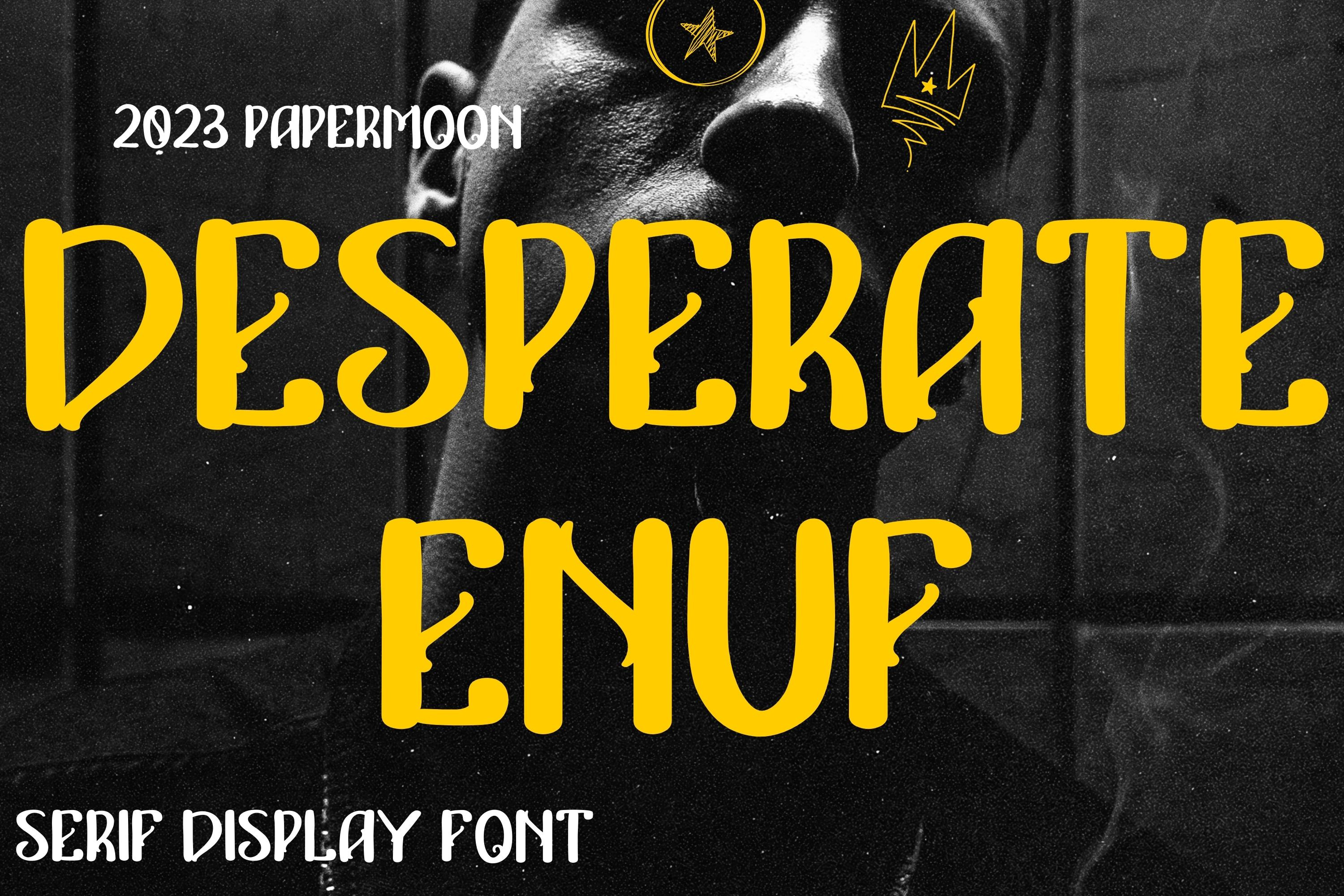
Desperate Enuf: Stylish Display Font
We're absolutely thrilled to unveil Desperate Enuf – a striking display typeface font that's here to ignite your creative projects!